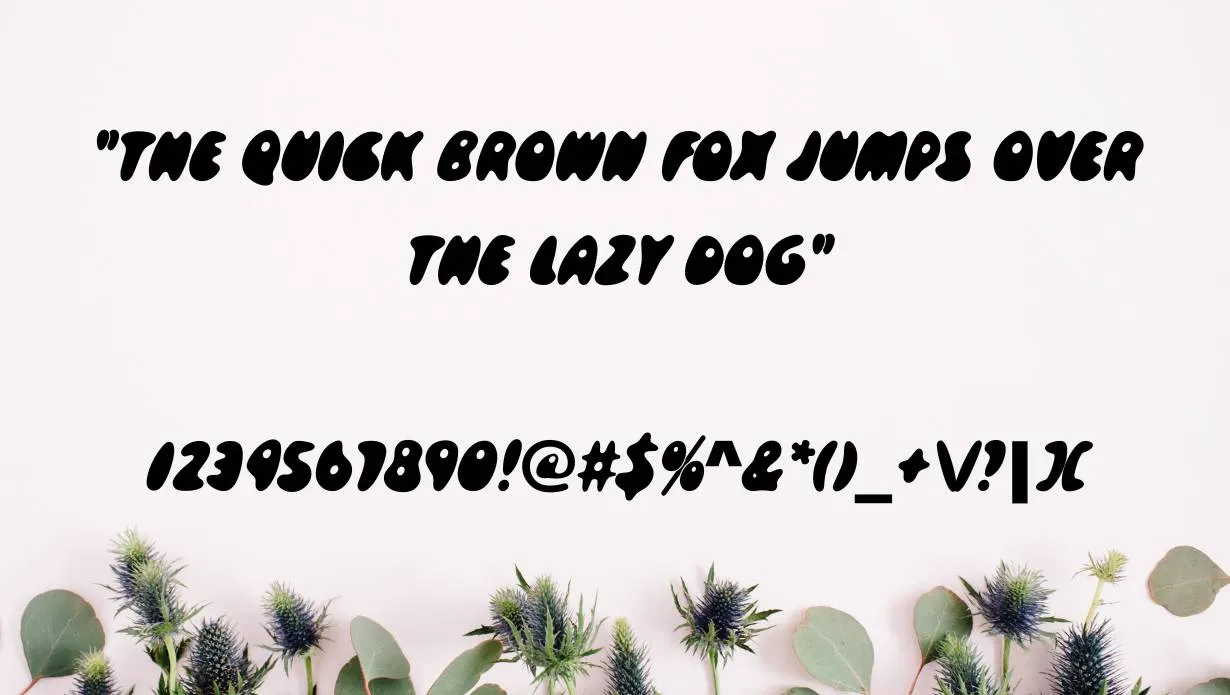
The Skidoospee Regular font maintains a straightforward and uncomplicated style, offering clarity and simplicity. In Adobe Photoshop, it produces clear and uncomplicated designs, ensuring straightforward communication.
When integrated into CSS, it introduces a straightforward essence into web elements, offering easy readability. In Canva, it’s perfect for crafting straightforward and easy-to-understand social media posts or creating clear and simple event announcements.